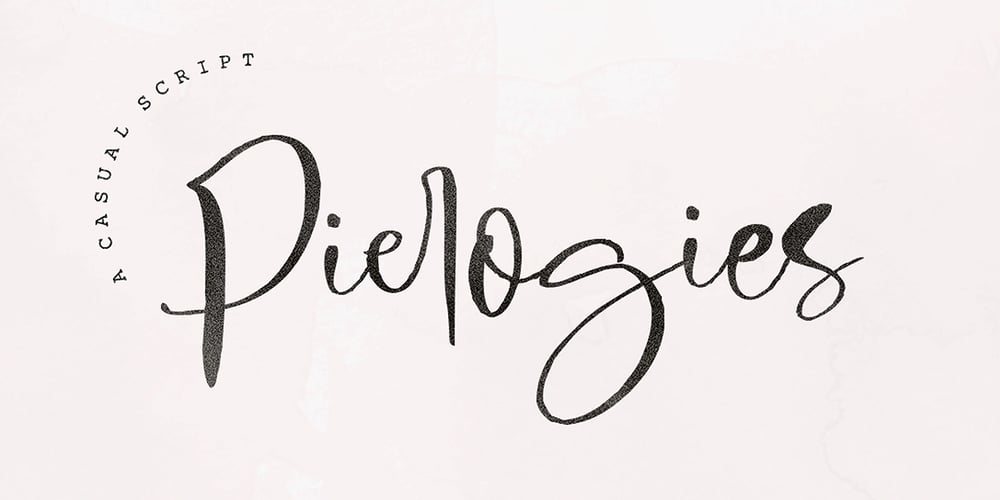
Pierogies Font Family was designed by Hafis Hidayat and published by HafisHidayat. Pierogies contains 1 styles and family package options. Pierogies is a signature font, specifically made with a very interesting and unique style when typing letters that are followed by interesting ligatures and a few alternatives. This font is perfect for various design needs such as creating logos, business cards, posters, invitations, packaging products, and more.Pierogies is coded with PUA Unicode, which allows full access to all the extra characters without having special designing software. Mac users can use Font Book , and Windows users can use Character Map to view and copy any of the extra characters to paste into your favourite text editor/app.Thanks so much for looking and please let me know if you have any questions.